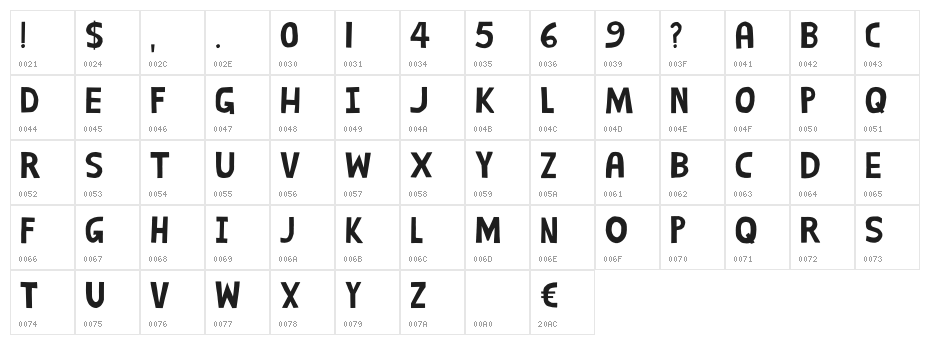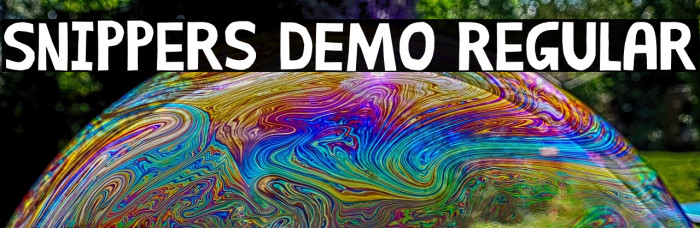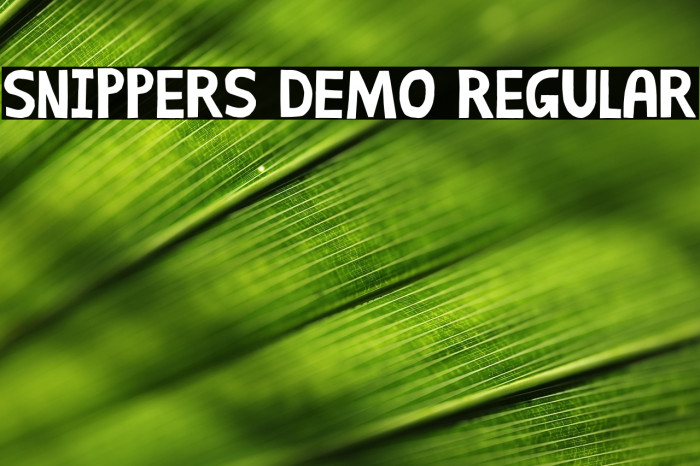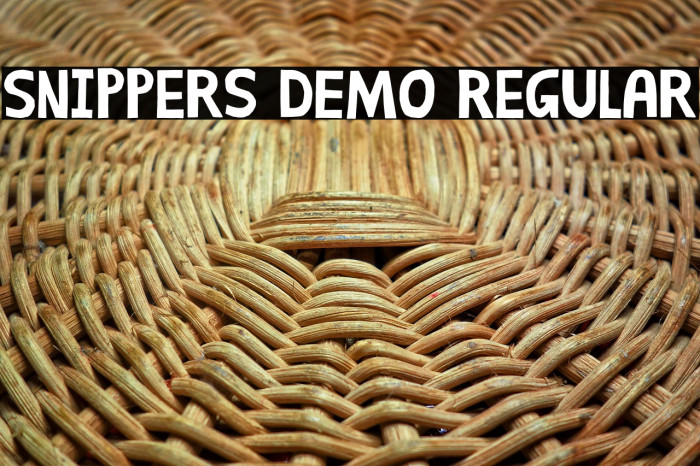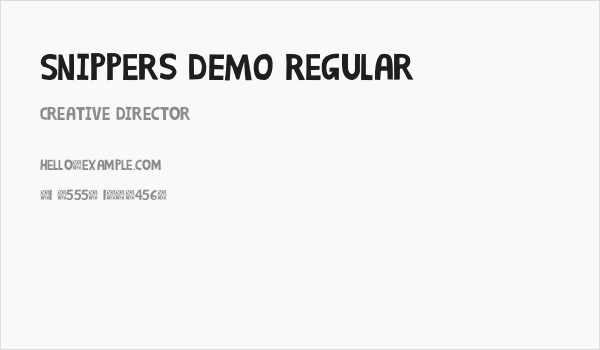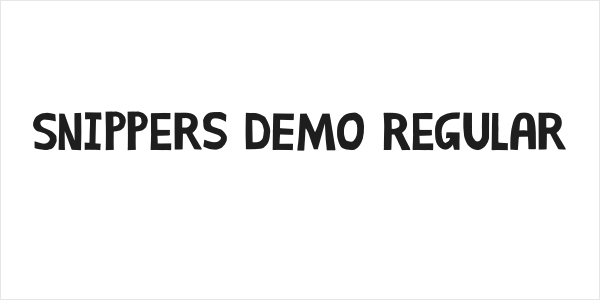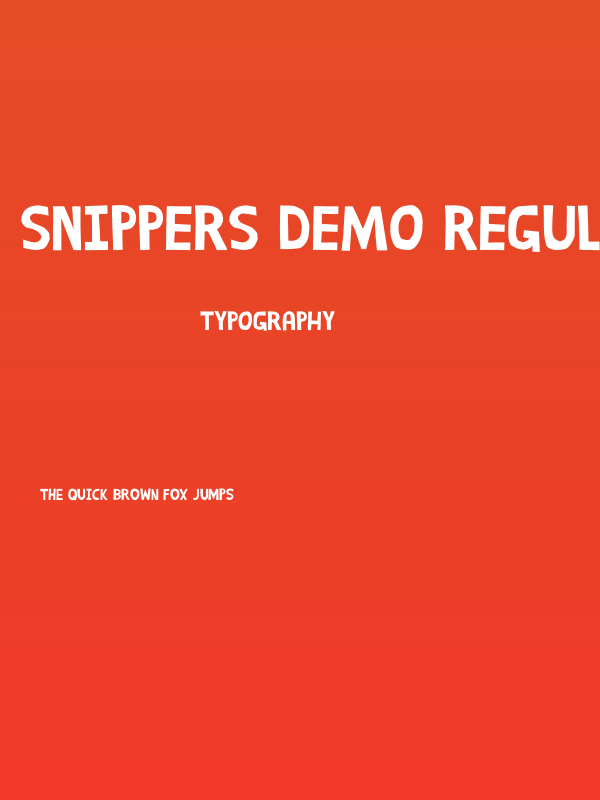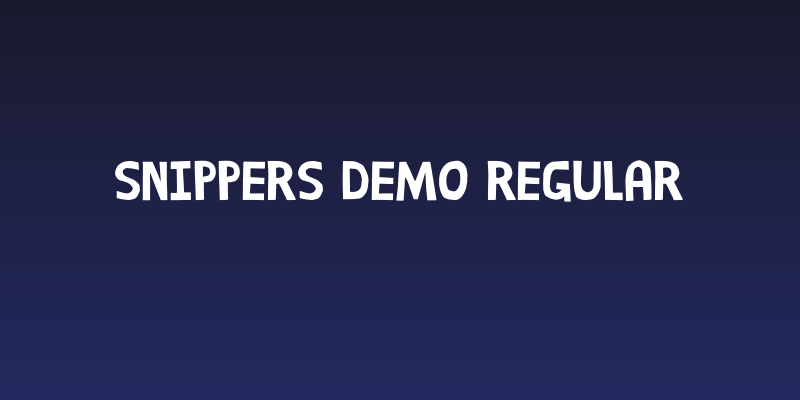
Snippers DEMO Regular Font
This font features a bold and playful design with a hand-drawn aesthetic. The uppercase letters are slightly irregular, giving a casual and artistic feel. The numbers incorporate a unique pattern, adding a decorative touch that stands out. The special characters maintain the same boldness, ensuring consistency across all elements. This font is ideal for creative projects that require a fun and engaging look.
Overall StylePlayful, Artistic
Proposed ProjectsPerfect for children's books, posters, and creative branding projects.